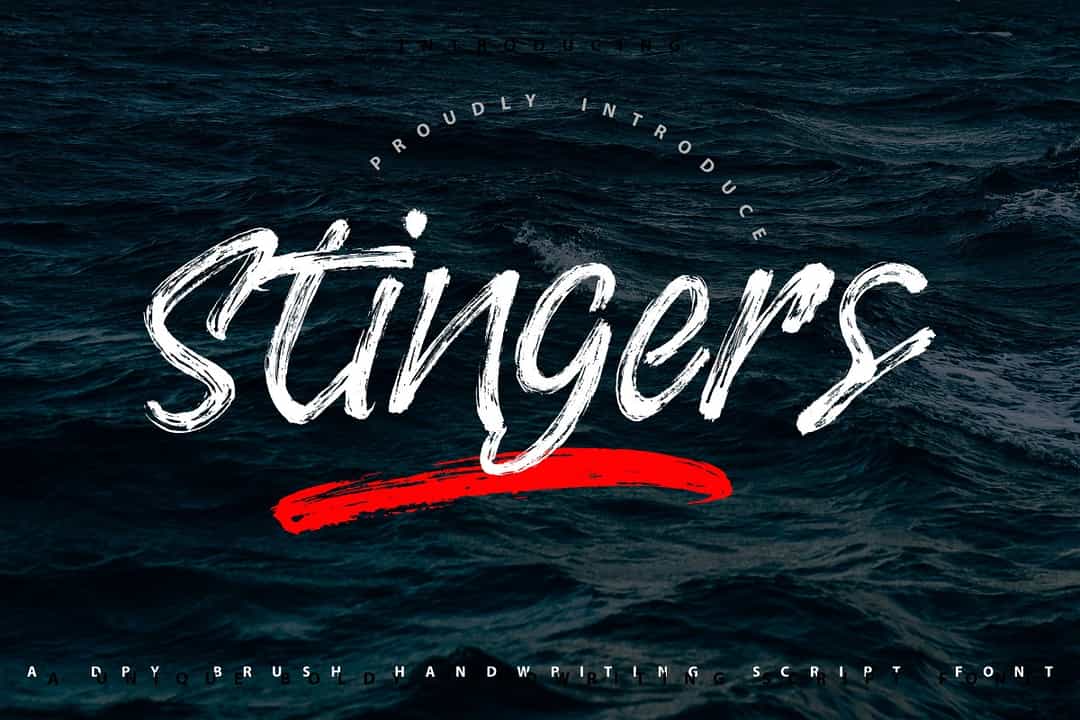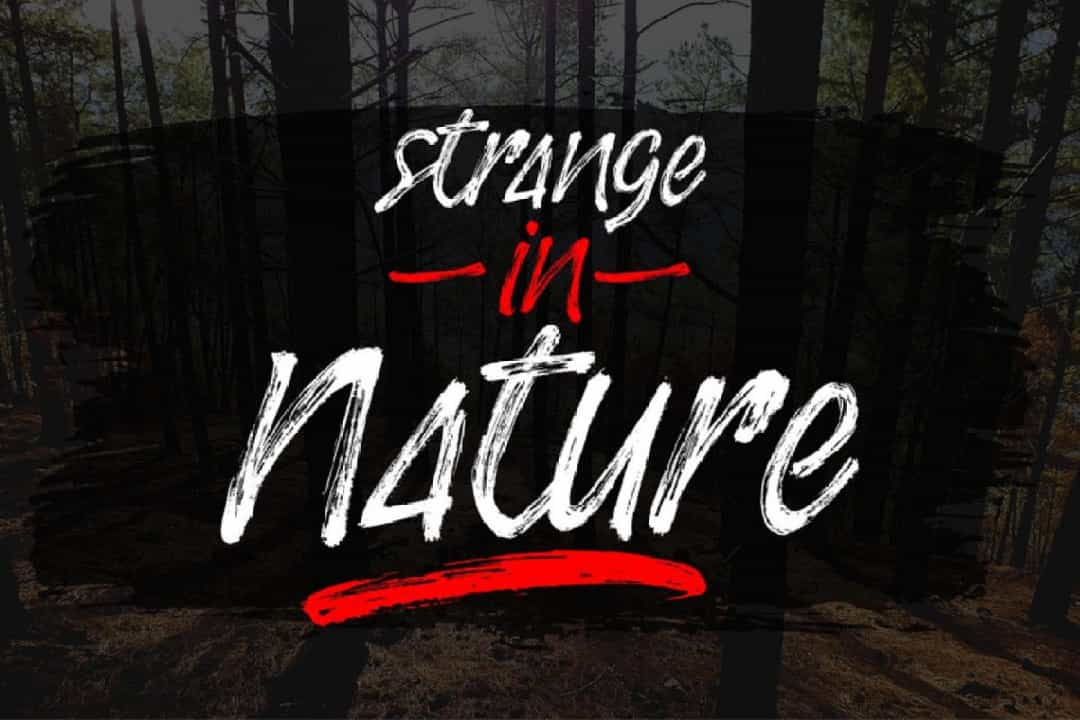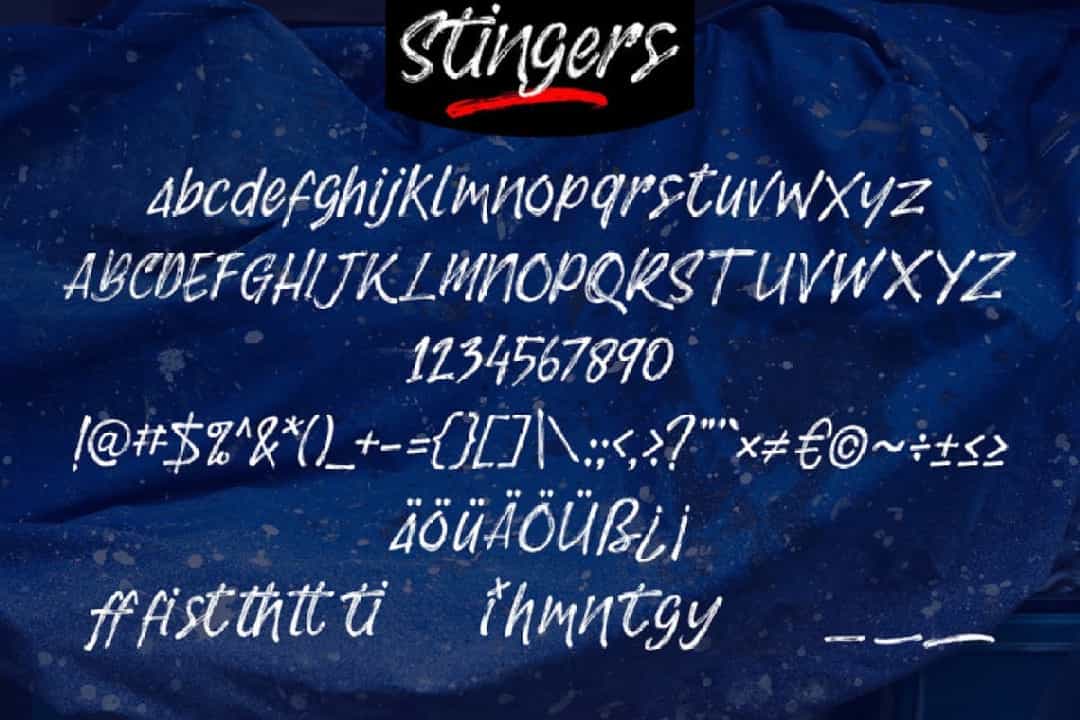
Discover Stingers Font, part of the Brush collection—a versatile and unique font perfect for adding a personal touch to your projects. Download it for free and enjoy crafting designs with style, from invitations to social media posts. This font is available exclusively for personal use, giving you the freedom to create without limits. Unlock your creativity with Stingers Font today!
Stingers is a stunning brush display font. Perfect for any subject matter, Stingers adds visual appeal and style to any design project.